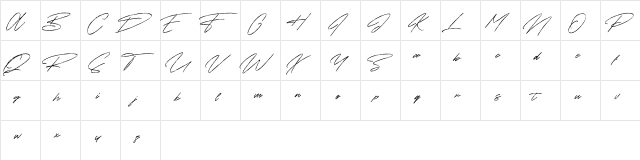
Sunset Trips Signature Free Regular
Design Context for Sunset Trips Signature Free Typeface
Sunset Trips Signature Free is a composed and adaptable typeface that performs quietly and consistently across a wide range of design contexts.